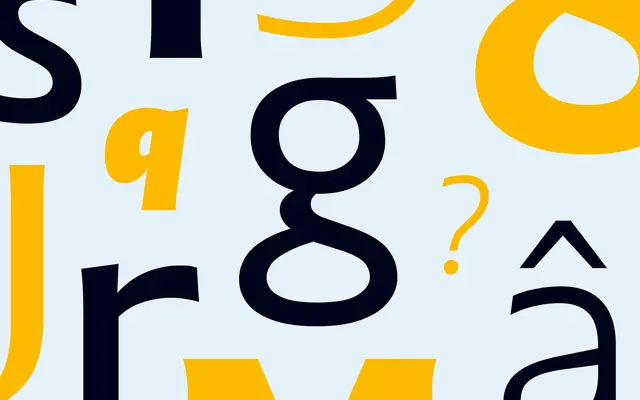
Highgate
Dalton Maag · Pablo Gámez, Elena Peralta · 2024
A contemporary incised serif drawn from British stone carving, with a Chisel axis that lets the cut deepen on demand.
An incised typeface by Pablo Gámez and Elena Peralta with open shapes, varied proportions and a flexible, friendly tone. The reference is British stone carving and the variable font carries Weight and Italic axes plus a Chisel axis that intensifies the cut for expressive headlines. The family won a Communication Arts Award of Excellence and works across editorial, identity and culture briefs.
Dalton Maag classifies Highgate as a contemporary incised typeface inspired by forms seen in British stone carving, with Weight and Italic axes plus a Chisel axis for extra expression. Awarded a Communication Arts Award of Excellence.